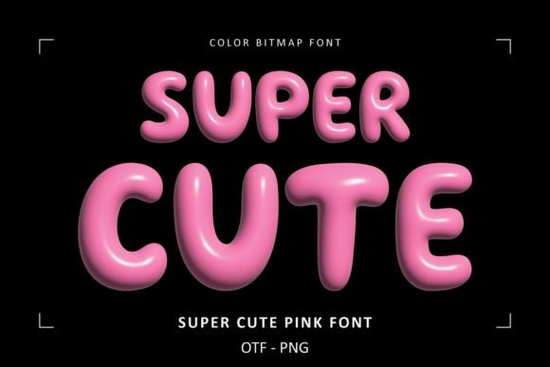
If you are looking for a ready-made typeface that adds instant warmth to your layouts, Super Cute Font Font delivers exactly that. This sweet color font features rounded, friendly letterforms that come pre-filled with a soft pink tone, so you do not have to spend time manually coloring each character. Designers, crafters, and print-on-demand sellers often reach for this style when they want a cheerful vibe without extra editing steps. The built-in shading keeps your workflow fast and your results consistent.
What makes this typeface work for playful projects?
The charm of this font comes from its carefully crafted curves and embedded color layer. Because the pink fill is already part of the font file, your text stays crisp at any size. You get consistent spacing, smooth edges, and a lighthearted feel that matches greeting cards, nursery decor, and social media graphics. The rounded structure keeps readability high, even when you use it for short headlines or product titles. If you usually spend time adjusting drop shadows or gradient fills, this pre-colored style saves you those extra clicks. It also removes the guesswork from color matching, which is especially helpful when you are preparing files for digital printing or local craft fairs.
Where can you actually use a sweet pink color font?
Small business owners and creative hobbyists find this style especially useful for items that need a friendly, approachable look. Think sticker sheets, party invitations, baby shower favors, and printable wall art. Print-on-demand sellers often pair it with simple illustrations for mugs, tote bags, and kids apparel. When you want to test other seasonal palettes, you might also browse a festive summer lettering set to match holiday promotions. For shop banners that need a bit of shine, a metallic display typeface can sit nicely beside softer pink lettering. The key is keeping your hierarchy clear: use the rounded font for your main message, and reserve decorative styles for smaller accents.
What should you check before adding it to your toolkit?
What steps should you follow before publishing your design?
- Pair the pink display letters with a plain sans serif for longer descriptions.
- Use light or white backgrounds so the built-in color stays vibrant and legible.